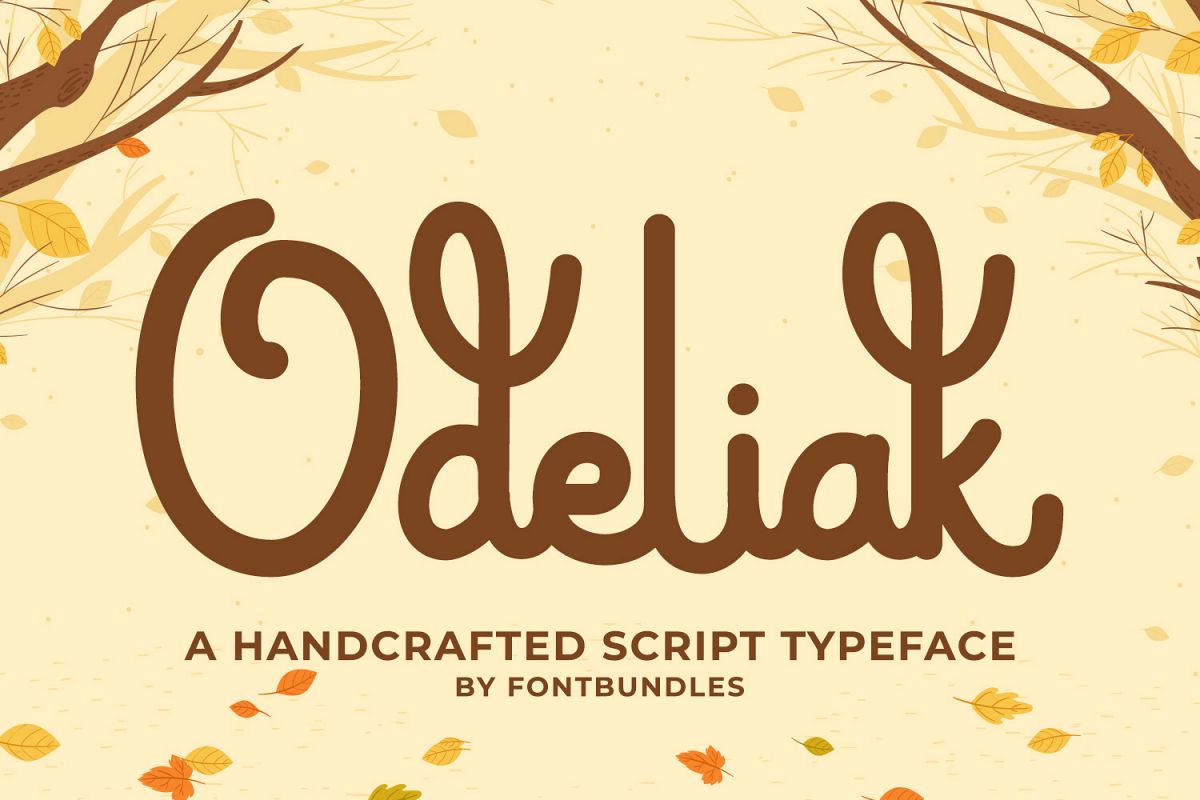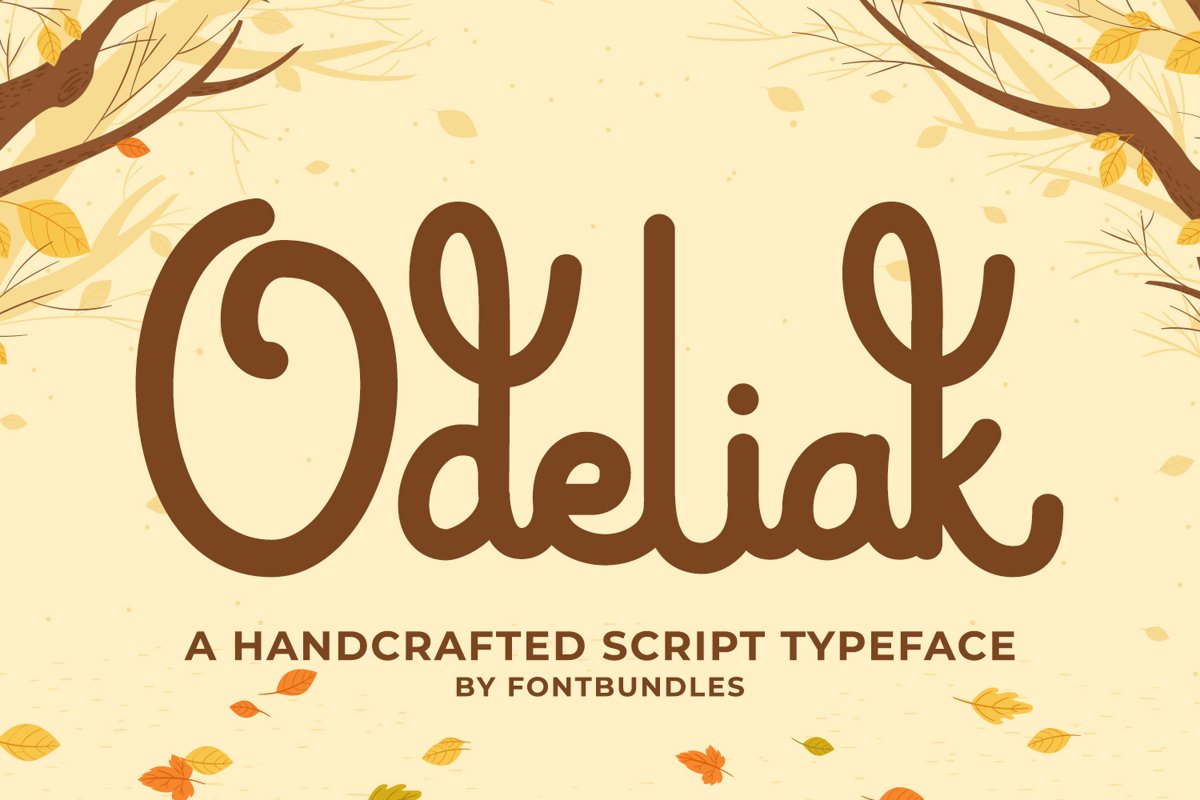
Odeliak is a Handcrafted Script Typeface. Suitable for any graphic designs such as branding materials, t-shirt, print, business cards, logo, poster, t-shirt, photography, quotes .etc